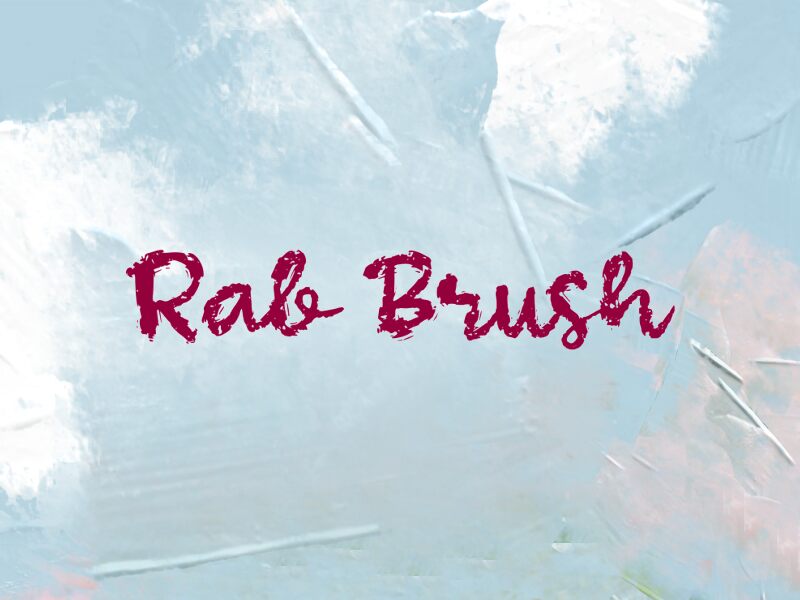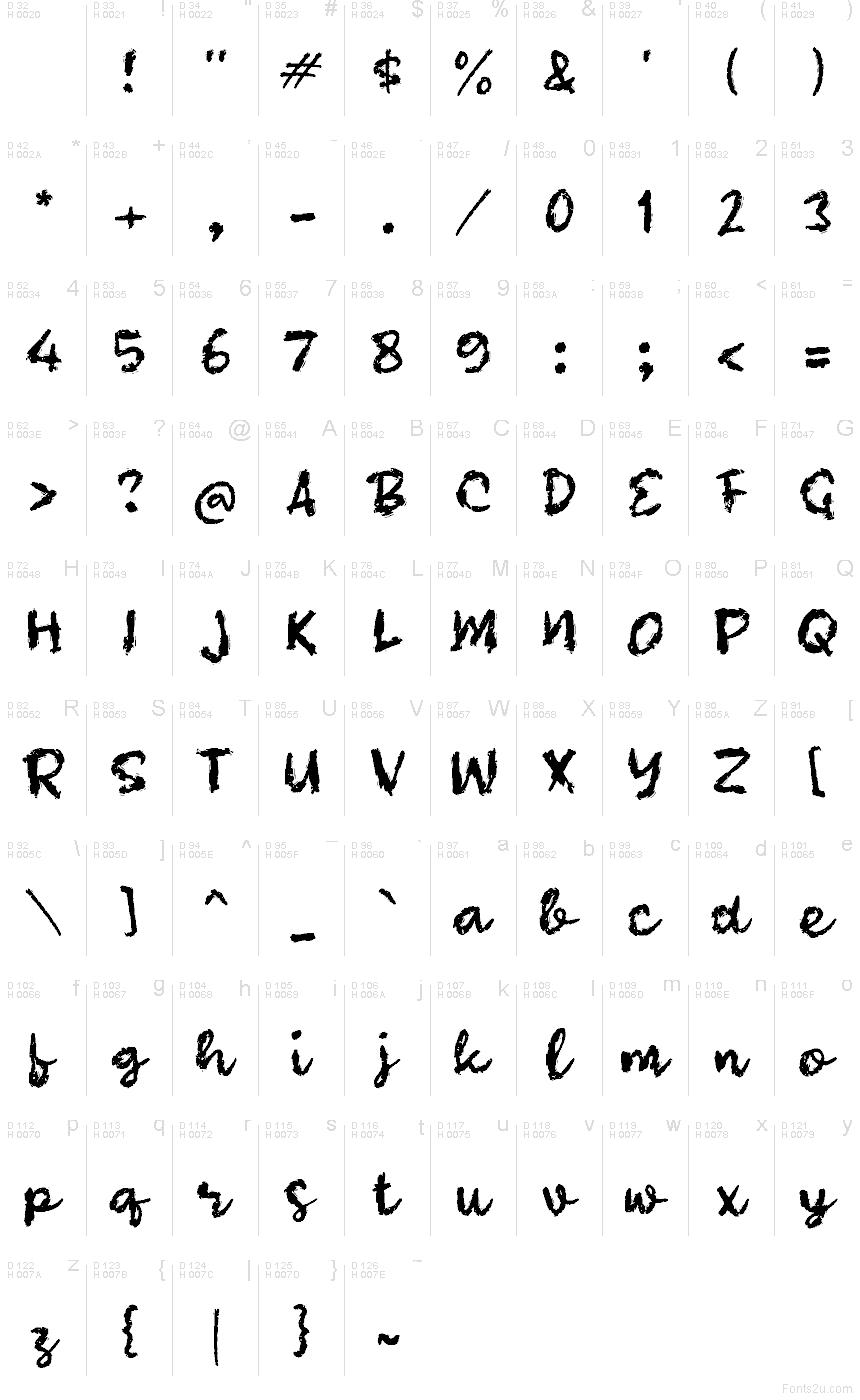
Rab Brush
Rab Brush font by wep is a free trash script typeface that looks like it was ripped straight from a paint-splattered wall. Each letter feels scratched in with a half-dry brush—rough edges, splatters, and broken strokes give it a raw, handmade energy. The rhythm is loose but still legible, so you get that chaotic, rebellious look without sacrificing readability.
Using Rab Brush, you can push attitude into gig posters, horror covers, streetwear branding, skate zines, YouTube thumbnails, and album art. This free font works best when you set it big and let the texture breathe, then pair it with a clean, narrow sans serif for body text to keep the chaos under control.